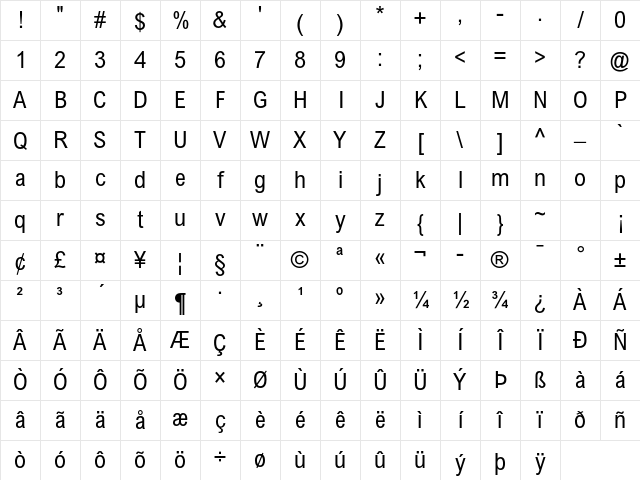
Arial MT Std Cond Free Font
Arial MT Std Cond
Style: Cond
Foundry: Agfa Monotype Corporation
Design Context for Arial MT Std
Arial MT Std is a composed and adaptable typeface that performs quietly and consistently across a wide range of design contexts. Its narrow stance lets it pack a punch even in space-constrained designs.